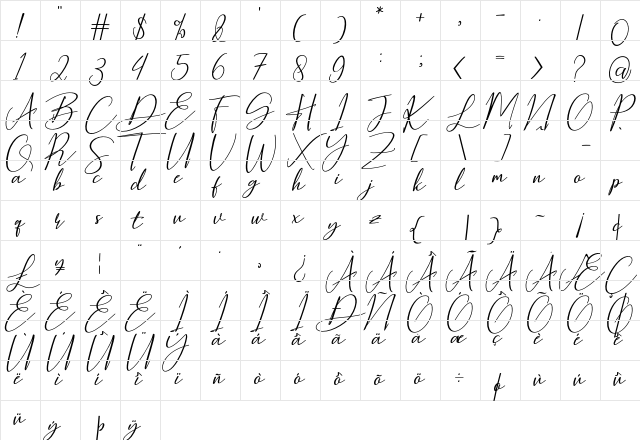
Hearth Stone Regular Free Font
Hearth Stone Regular
Foundry: Mightype
Designer: Munawir
Year: 2019
Design Context for Hearth Stone
Hearth Stone is a composed and adaptable typeface that performs quietly and consistently across a wide range of design contexts.
Who designed the Hearth Stone Regular font?